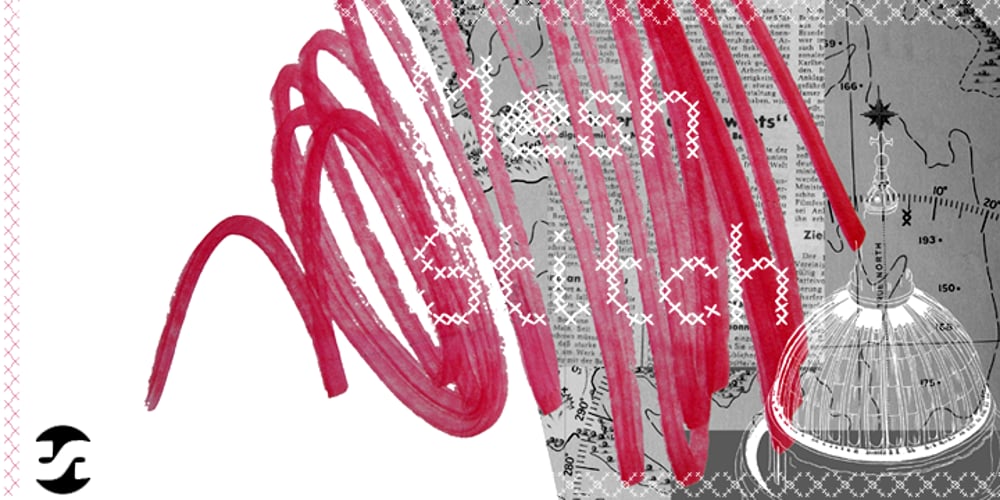
Mesh Stitch
Mesh Stitch font
Mesh Stitch Font Family was designed by Fran Board and published by Siren Fonts. Mesh Stitch contains 1 styles and family package options. Mesh Stitch has a hand-stitched look, with the capital letters/numbers being nine cross-stitches tall (+ about 3 stitches for accents). To make the font look authentic, I stitched some characters using wool and took photographs which were turned into glyphs. As a result, none of the cross-stitches are symetrical and some are at a slightly at an angle, because I didn’t want the font to feel mechanical. As a result, the font has a cute, homely character to it. It is particularly good for large displays/headlines.